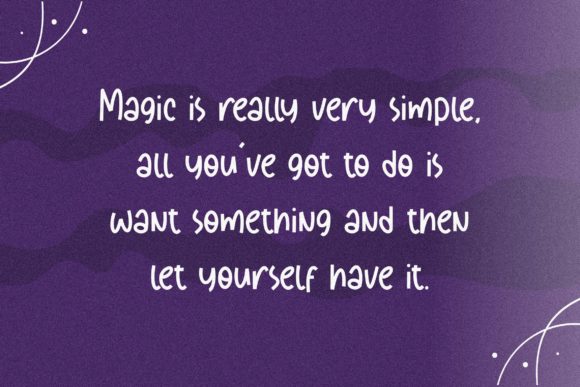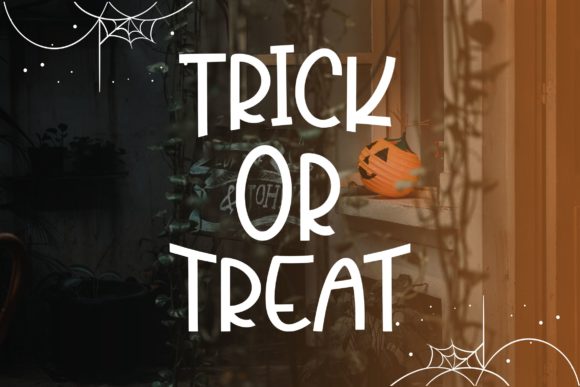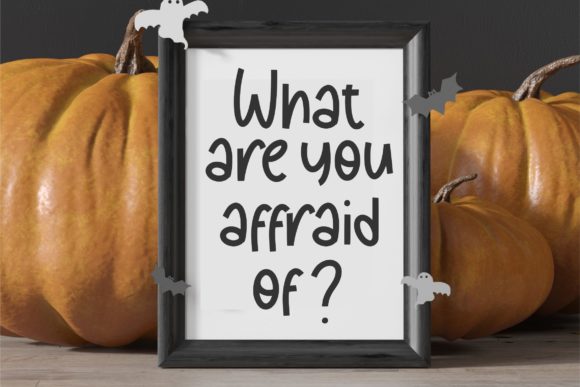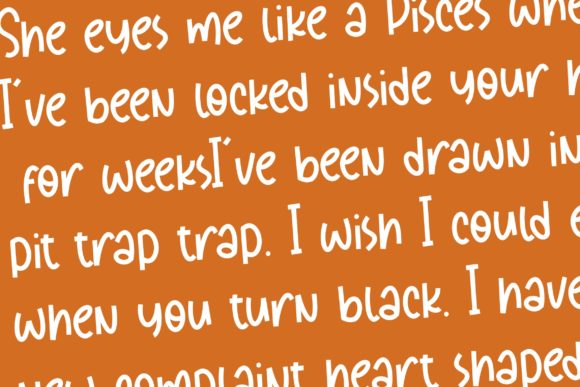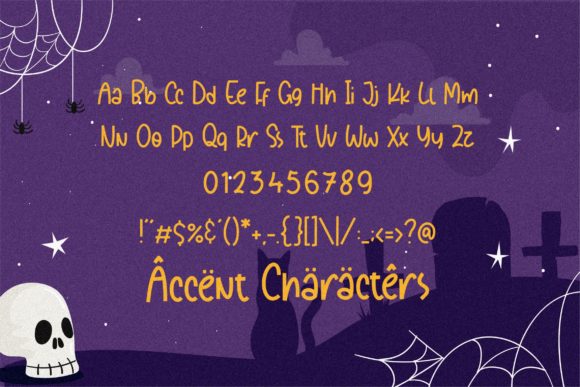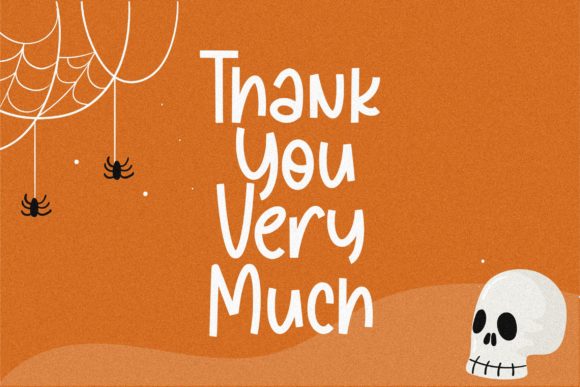
Diamond Midnight Font: A Quirky yet Bold Display Font for Creative Projects
In the world of typography, fonts play a crucial role in conveying the tone and personality of a brand or design. For designers and crafters looking for a unique and eye-catching font, Diamond Midnight is an excellent choice. This quirky yet bold display font is perfect for a wide range of creative projects, from product packaging and branding to magazines, social media, invitations, and more.
What is Diamond Midnight Font?
Diamond Midnight is a display font that boasts a distinctive and bold style. Its quirky design makes it stand out from more traditional fonts, adding a touch of personality to any project. The font’s unique features include its bold lines, sharp edges, and eye-catching details, making it perfect for designs that require a bit of flair.
Key Features of Diamond Midnight Font
- Bold and Quirky Design: Diamond Midnight’s bold and quirky design makes it perfect for designs that require a statement piece.
- High Versatility: This font can be used for a wide range of creative projects, from product packaging to social media graphics.
- Easy to Read: Despite its bold design, Diamond Midnight is easy to read, making it perfect for headlines, titles, and short paragraphs.
- Unique Details: The font’s unique details, such as its sharp edges and bold lines, add a touch of personality to any design.
Use Cases for Diamond Midnight Font
Diamond Midnight is an incredibly versatile font that can be used for a wide range of creative projects. Here are some use cases where this font truly shines:
- Product Packaging: Add a touch of personality to your product packaging with Diamond Midnight. Its bold design makes it perfect for labels, tags, and other packaging materials.
- Branding: Use Diamond Midnight as a logo font or for branding materials, such as business cards and letterheads.
- Magazines and Newspapers: Add a touch of flair to your magazine or newspaper with Diamond Midnight. Its bold design makes it perfect for headlines and titles.
- Social Media Graphics: Use Diamond Midnight to create eye-catching social media graphics, such as Facebook posts, Instagram stories, and Twitter headers.
- Invitations and Event Materials: Add a touch of personality to your invitations and event materials, such as wedding invitations, party flyers, and event posters.
Tips for Using Diamond Midnight Font
To get the most out of Diamond Midnight, here are some tips to keep in mind:
- Use it Sparingly: While Diamond Midnight is a beautiful font, it’s best to use it sparingly. Use it for headlines, titles, and short paragraphs to add a touch of personality to your design.
- Pair it with Other Fonts: Pair Diamond Midnight with other fonts to create a unique and visually appealing design. Try pairing it with a sans-serif font for a bold and modern look.
- Experiment with Colors: Diamond Midnight looks great in a variety of colors. Experiment with different colors to find the one that works best for your design.
Diamond Midnight is a quirky yet bold display font that’s perfect for designers and crafters looking to add a touch of personality to their creative projects. Its bold design, high versatility, and ease of use make it an excellent choice for a wide range of applications. With its unique details and eye-catching style, Diamond Midnight is sure to make your designs stand out from the crowd.
Whether you’re working on product packaging, branding, magazines, social media graphics, or invitations, Diamond Midnight is an excellent choice. So why not give it a try and see how it can elevate your designs to the next level?